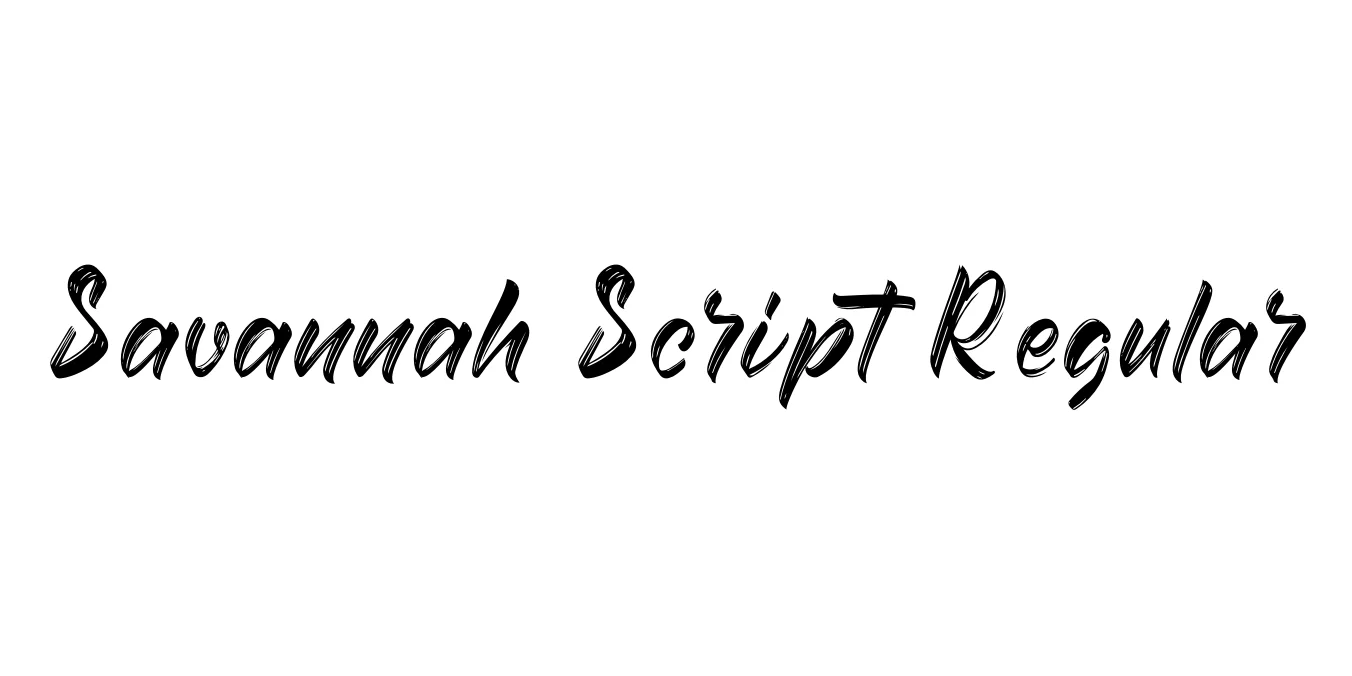
Savannah Script Regular
Designed by Letterhend Studio
Savannah Script Regular is a sophisticated and fluid calligraphy typeface designed to emulate the natural flow of hand-inked lettering. Created by the talented team at Letterhend Studio, this font stands out for its elegant curves and high-contrast strokes that provide a touch of luxury and refinement to any design project. Its organic movement and balanced weight make it an excellent choice for designers seeking a human touch in digital typography.
Historically, the font belongs to the modern script movement, which focuses on legibility while maintaining the artistic flair of traditional penmanship. It includes a comprehensive set of characters, often featuring decorative swashes and ligatures that allow for a custom, bespoke look. Whether used for high-end fashion branding or intimate event invitations, Savannah Script Regular delivers a timeless aesthetic that bridges the gap between classic elegance and contemporary style.
Savannah Script Regular Best Uses
Perfect for invitations, envelopes, and place cards that require a romantic and formal touch.
Ideal for boutique brands, beauty salons, and fashion labels looking for a sophisticated identity.
Excellent for creating high-impact quotes and stylish graphics for Instagram and Pinterest.
Adds a premium, artisanal feel to cosmetics, perfumes, and luxury food items.
Savannah Script Regular Glyphs